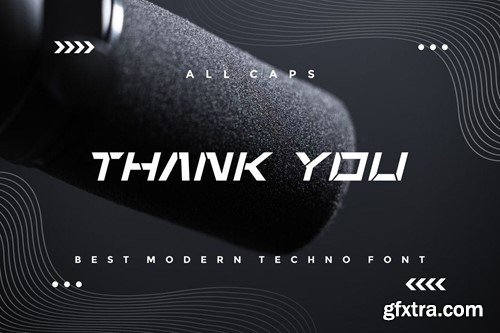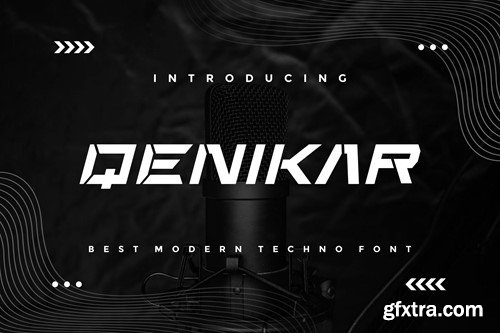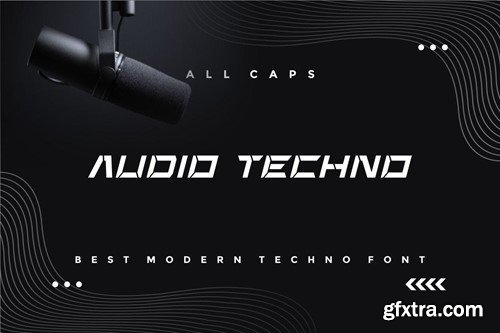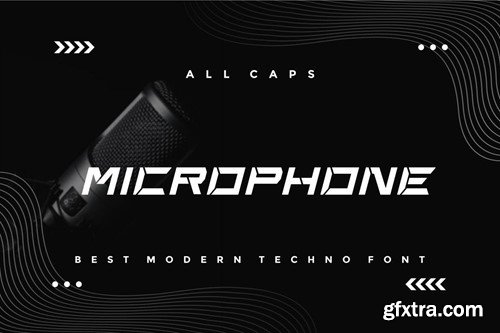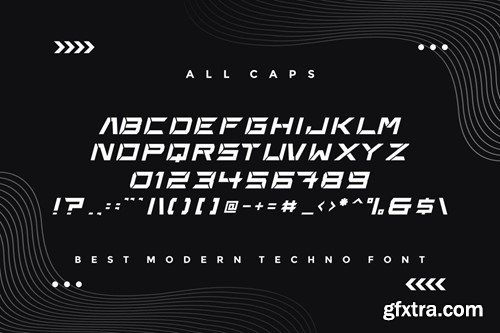
Qenikar - Modern Techno Font
Introducing our new product Qenikar - Modern Font
Qenikar is a bold, modern display font with playful flair, ideal for attention-grabbing headlines, logos, and diverse design projects. Versatile and readable in both digital and print, Qenikar adds a dynamic touch to your message.